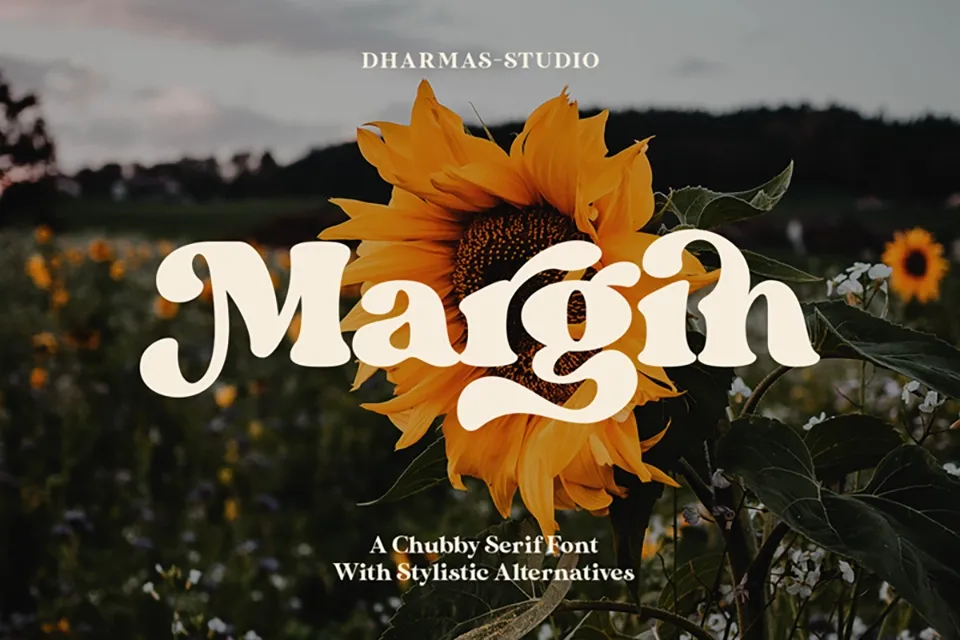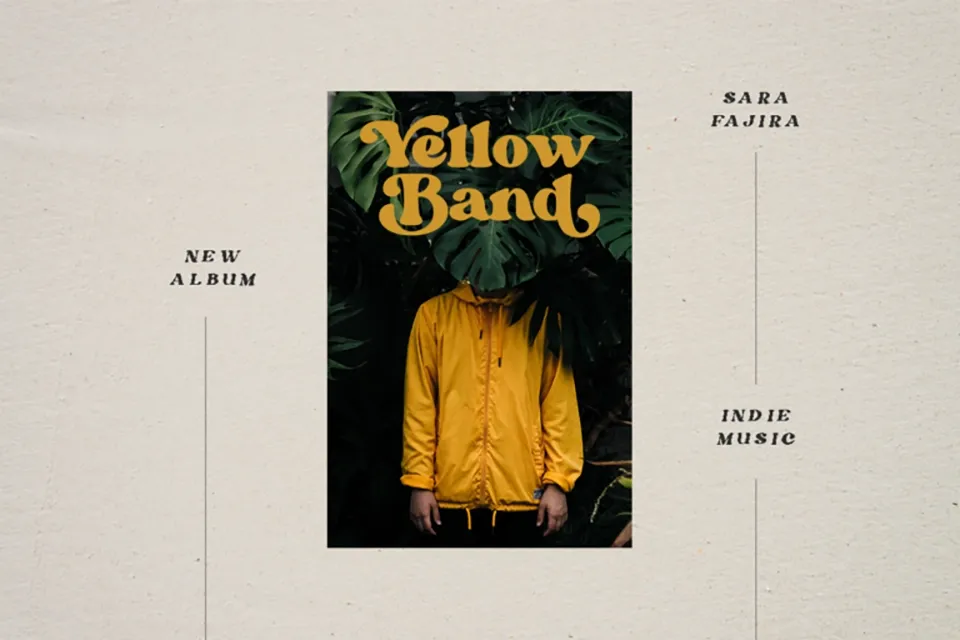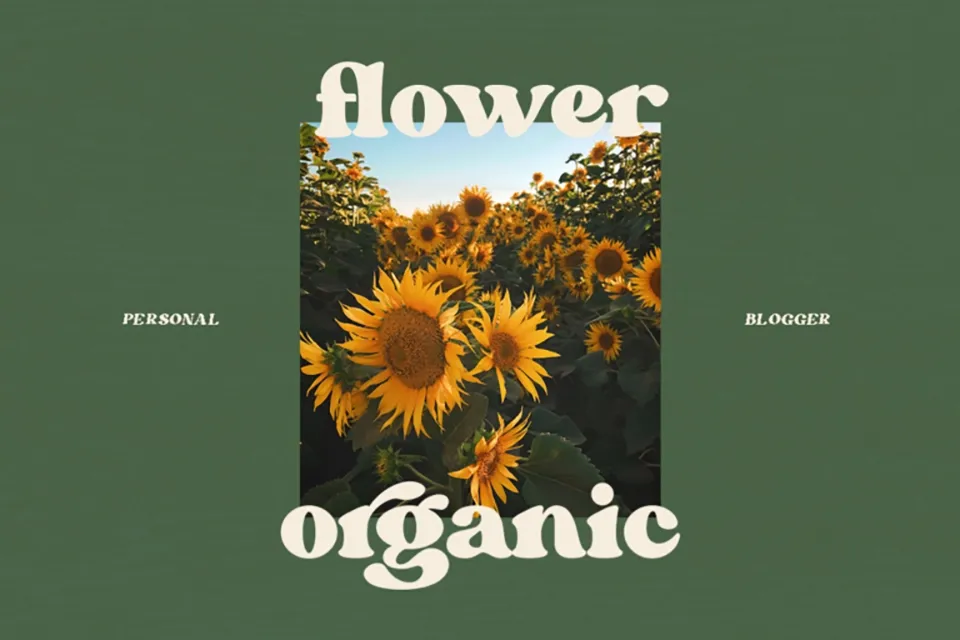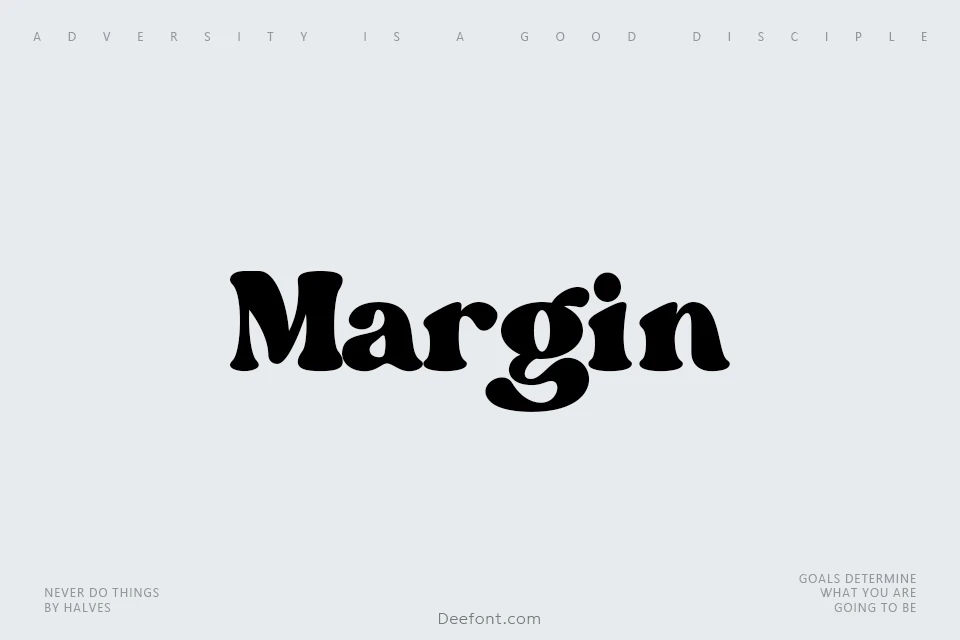
Margin Font
Margin Font is a bold, retro-inspired serif typeface with thick curves and playful stylistic alternates, evoking the groovy spirit of the 1970s. Its chubby letterforms and sharp serifs blend nostalgia with sophistication, making it perfect for vintage logos, branding, posters, packaging, and editorial designs. Margin Font includes regular and italic styles, multilingual support, alternates, and ligatures, offering versatility and personality for any creative project.